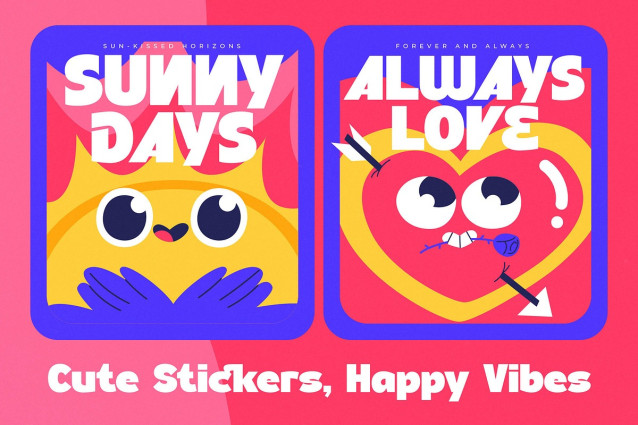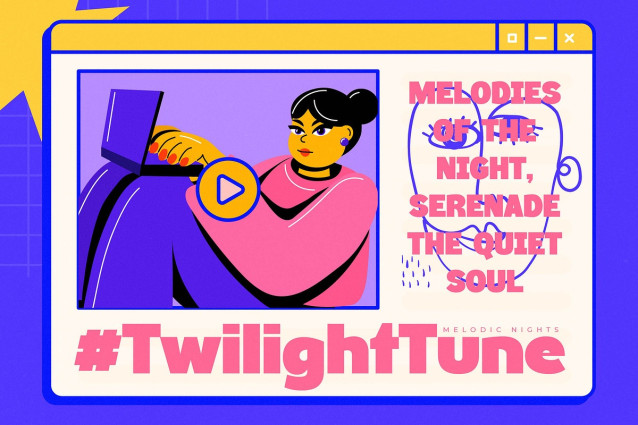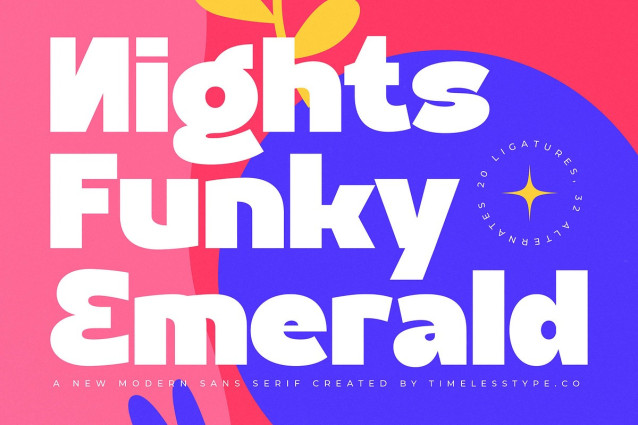
Nights Funky Emerald Font
Nights Funky Emerald Font a typeface designed to turn heads and spark conversation. This font blends contemporary boldness with a nostalgic twist, ensuring your message is felt as much as it is read.
Drawing inspiration from the neon-lit streets of mid-century nightlife and the groovy spirit of the 1970s, this font captures a unique visual rhythm. It reimagines classic display shapes through a modern lens, resulting in a visual language that feels both timeless and ahead of the curve.
Exuding confidence and flair, this modern serif display choice brings a sense of luxury typography to any layout without losing its playful edge. The high-contrast serif elements provide a sophisticated rhythmic flow that is perfect for a high-end editorial font or any project requiring maximum branding impact.
Perfectly aligned with the current modern serif trend, this typeface answers the demand for editorial display fonts that prioritize personality over pure utility. It stands at the forefront of character-driven typography, offering a fresh alternative for designers who want to break away from sterile minimalism.
This versatile powerhouse is an ideal candidate for logo design and comprehensive branding identity systems that need to stand out. Its bold presence makes it a standout choice for editorial layouts, custom packaging, upscale wedding stationery, and avant-garde fashion campaigns.
Unlock endless creative possibilities with the included ligatures and alternates that allow for bespoke letter combinations and unique swashes. Fully equipped for global reach, it features comprehensive multilingual support and a wide range of international characters to suit any market.